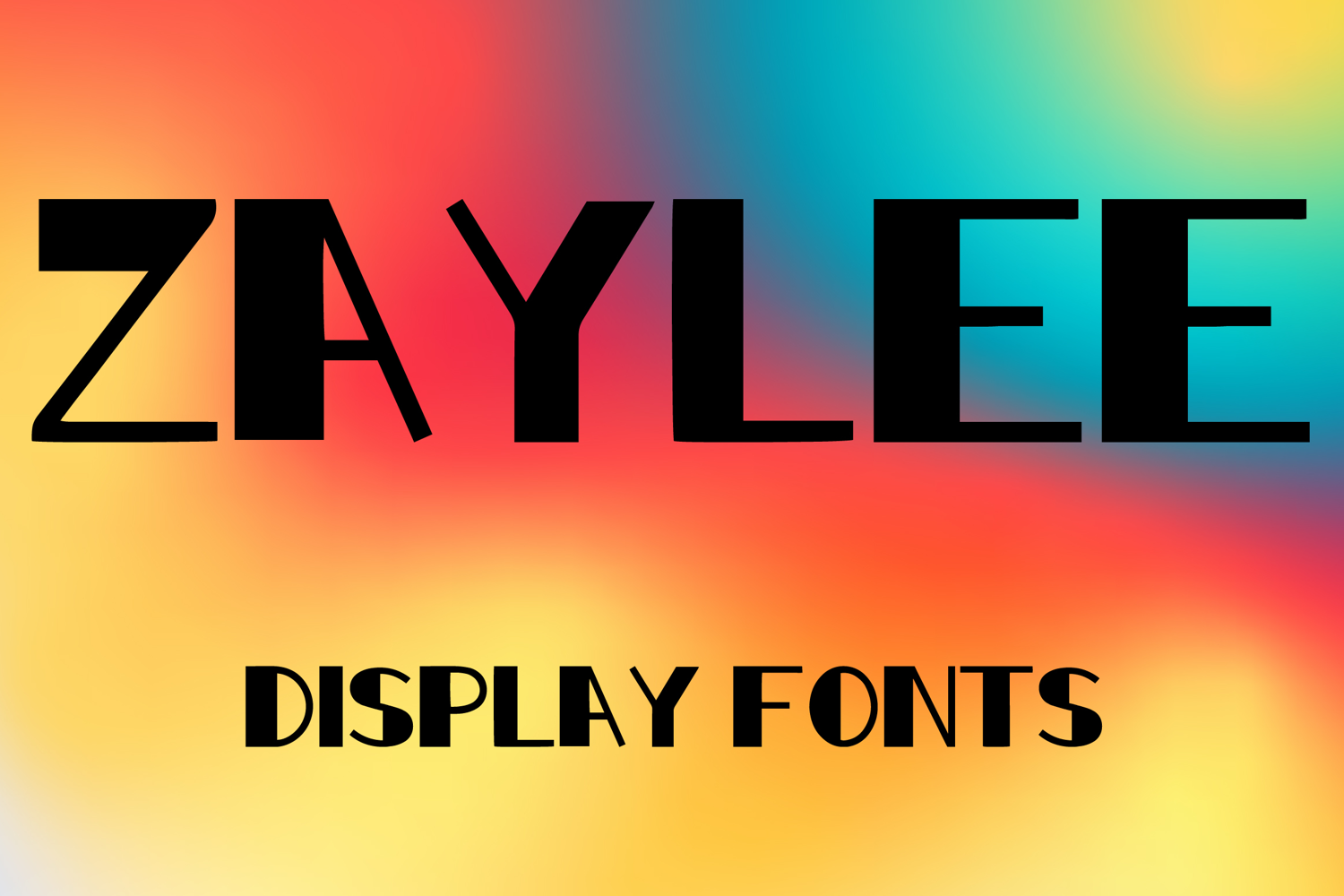
ZAYLEE
ZAYLEE is a bold display font with a tall geometric style and strong modern character. Its uppercase letterforms feature clean straight lines, sharp angles, and slightly handcrafted details that create a striking, stylish, and eye-catching look. Designed with uppercase letters A–Z and numbers 0–9, ZAYLEE is perfect for branding, posters, packaging, headlines, logos, and social media graphics that need a bold and memorable statement.